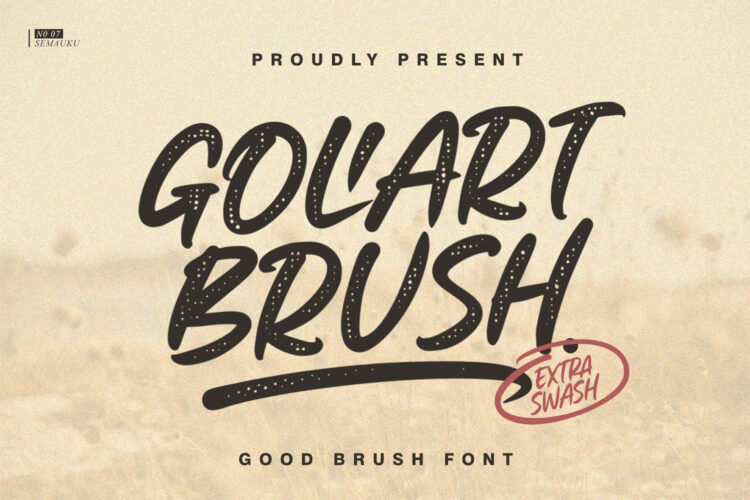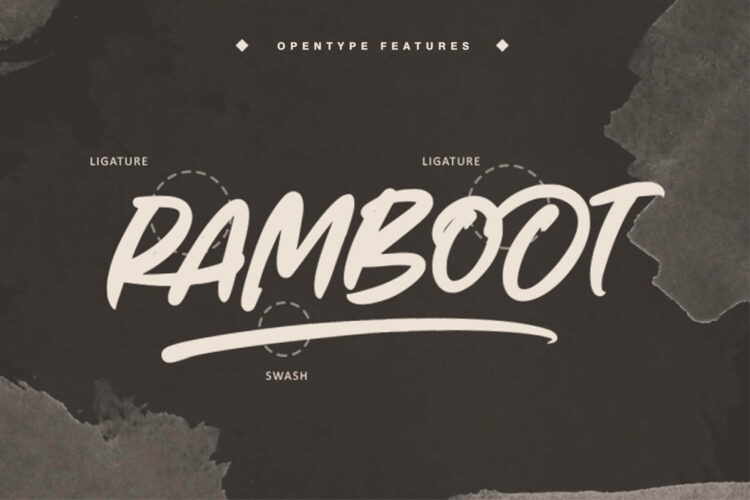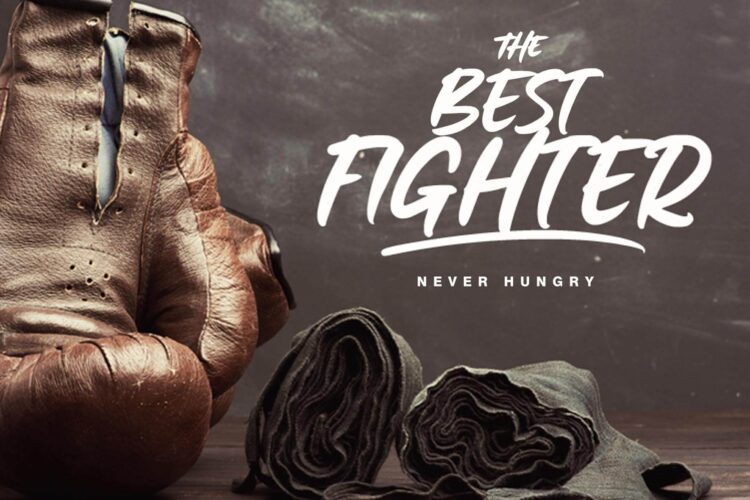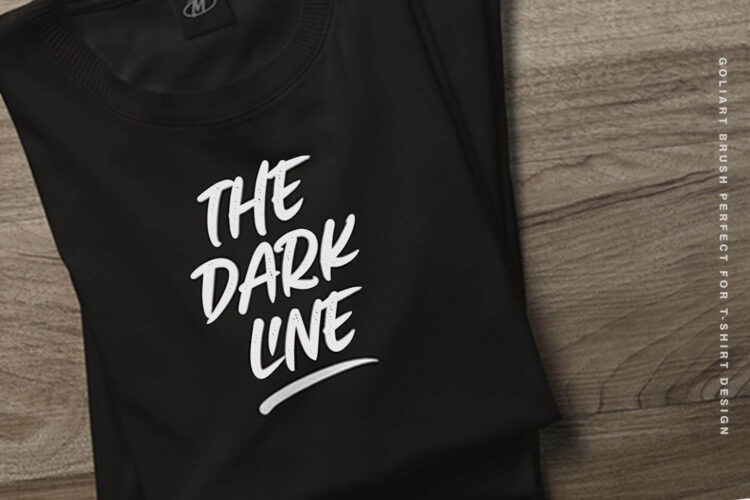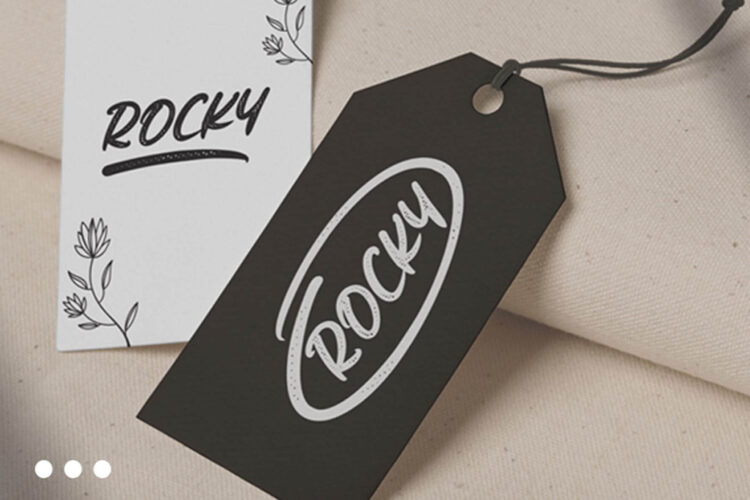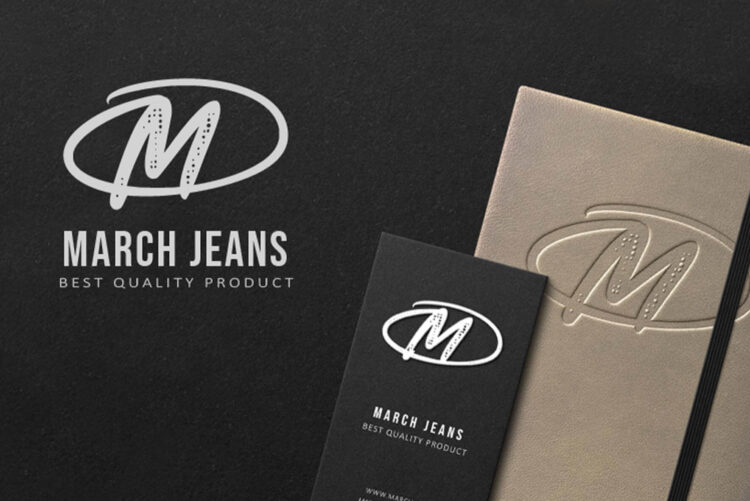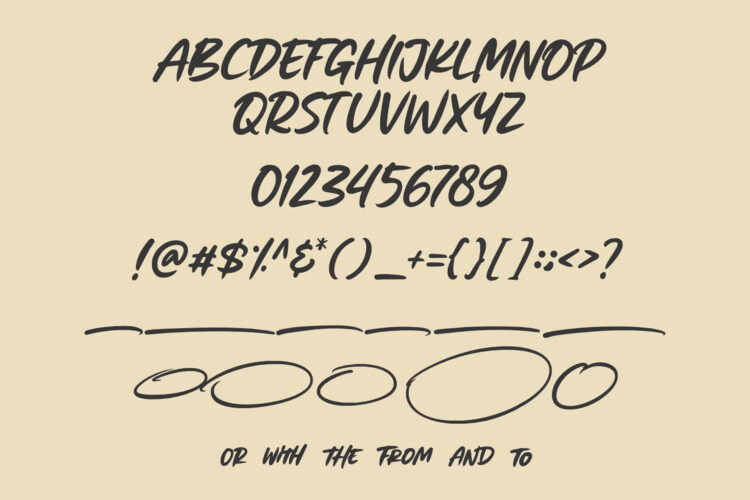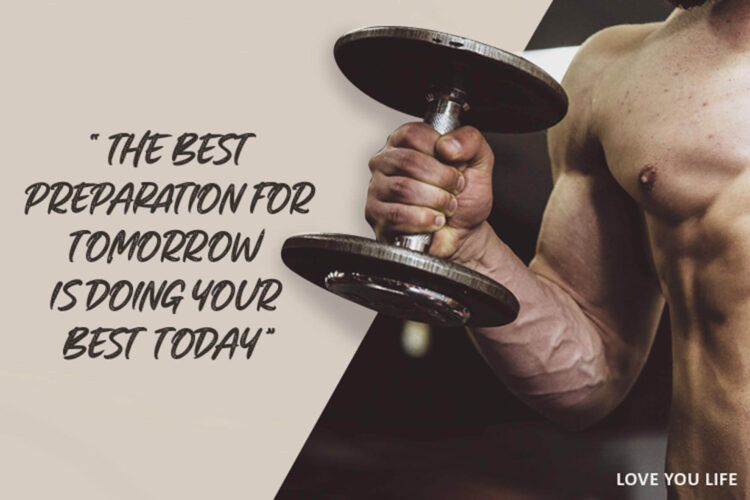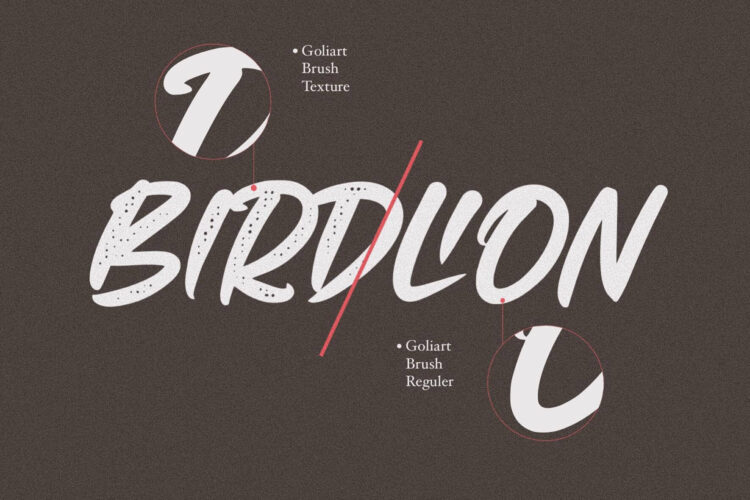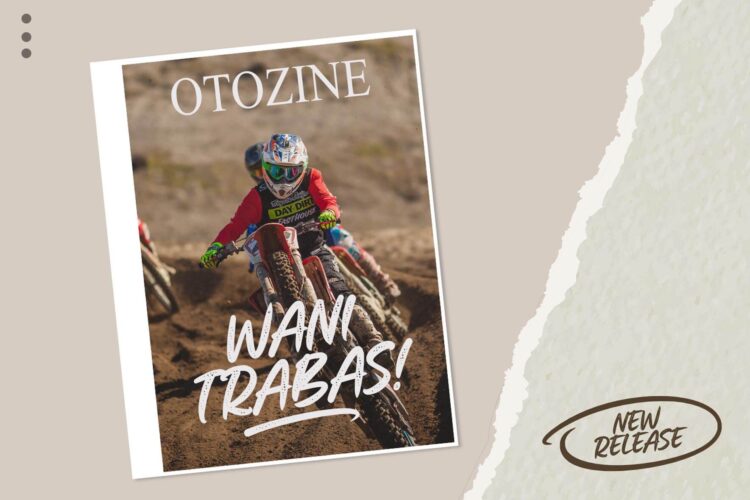
Goliart Brush
Description
The Goliart Brush is a display style font with authentic hand-drawn strokes. There are 2 styles, regular and also a halftone effect texture. This is perfect for your adventure-themed design projects. In addition, Goliart Font is very suitable to be applied to clothing designs, merchandise, bags, posters, book covers, social media posts, video thumbnails and others.
Feature:
• All Caps Character
• Numerals
• Punctuation
• Multilingual Support
• Extras Swash
• Ligature